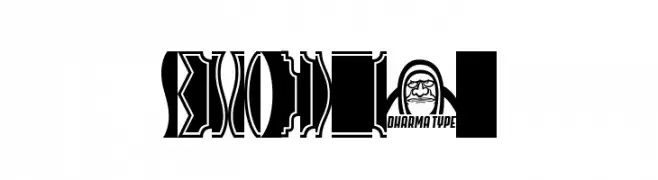
Circus-themed dingbat font with playful illustrations.
Hand-drawn doodle-style symbol and icon set.
A whimsical, decorative font with dotted patterns and playful details.
A decorative, italicized font with cultural motifs and bold, flowing strokes.
A decorative and gothic font with sharp angles and intricate embellishments.
Abstract geometric symbol font with bold, decorative shapes.
A bold, modern serif font with geometric influences and elegant flourishes.
Ornate Art Deco border and corner designs in a decorative style.
A bold, decorative font with characters enclosed in circles and teardrop accents.
A futuristic, geometric font with a bold, interconnected design and three-dimensional effect.
Whimsical cartoon dingbat font with children's faces and playful icons.
A jagged, gothic-style font with thorn-like accents, ideal for dramatic themes.
Eclectic and detailed pictorial dingbats with a whimsical, decorative flair.
A dingbat font with gravestone and tombstone illustrations.